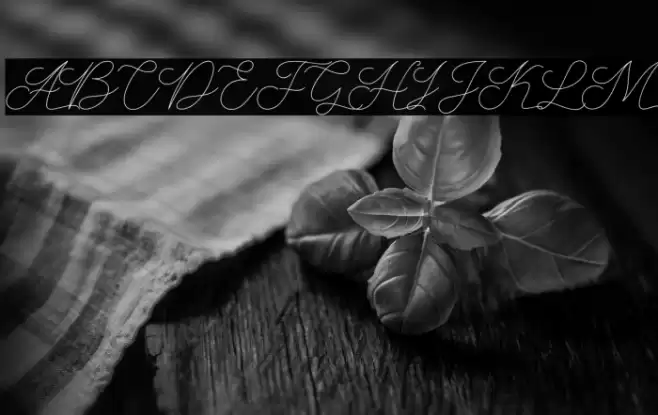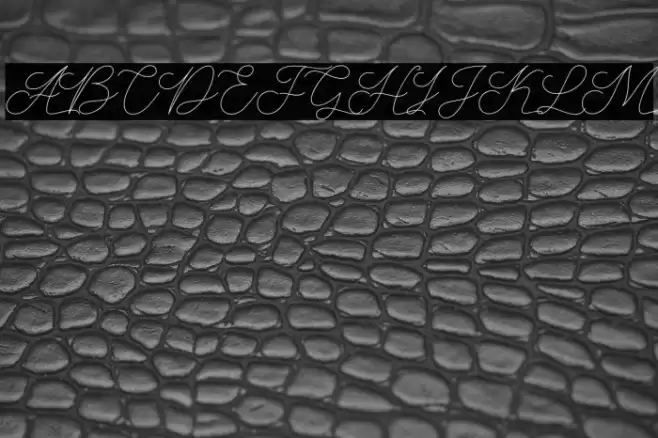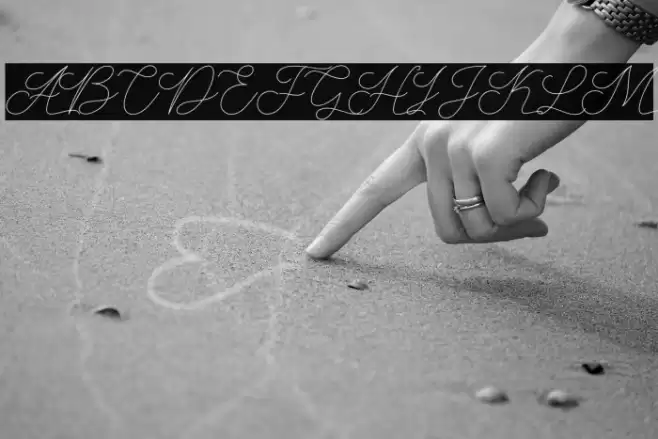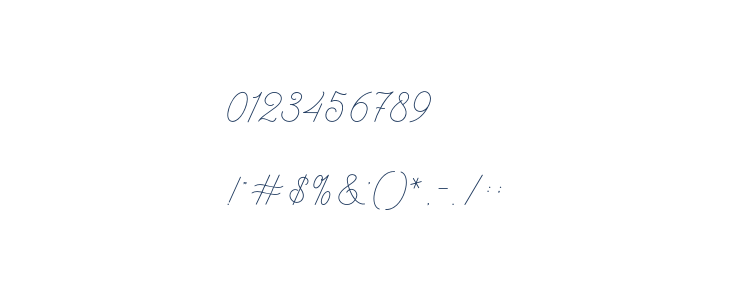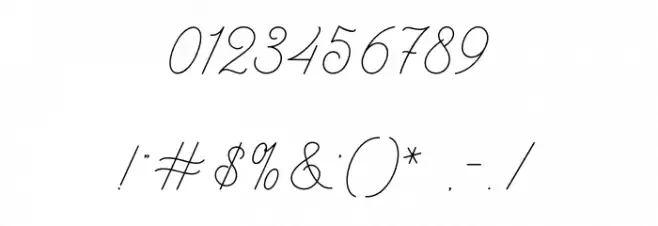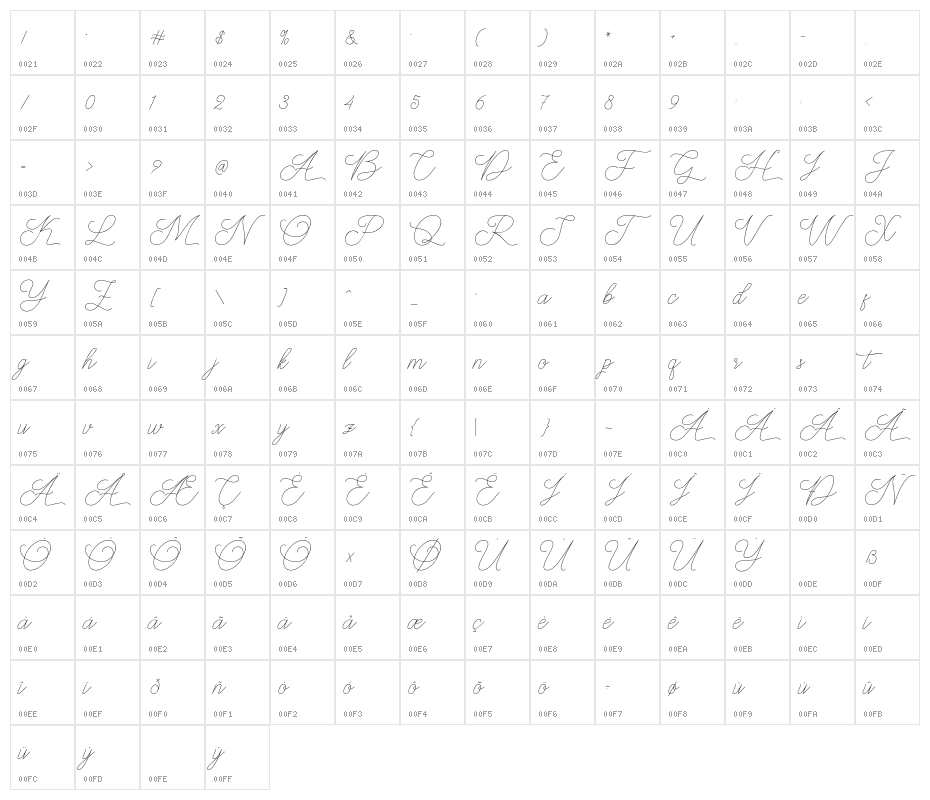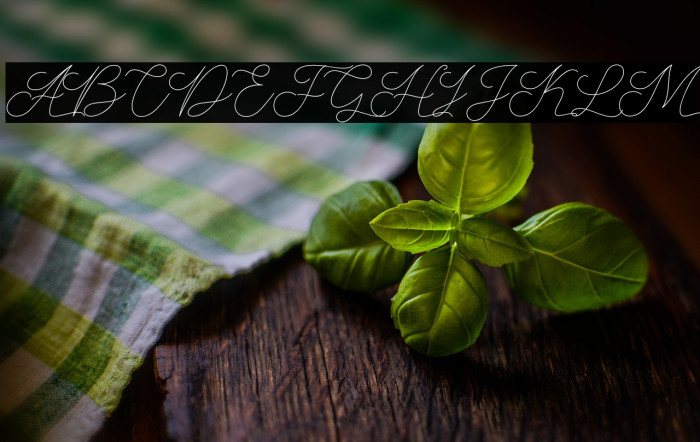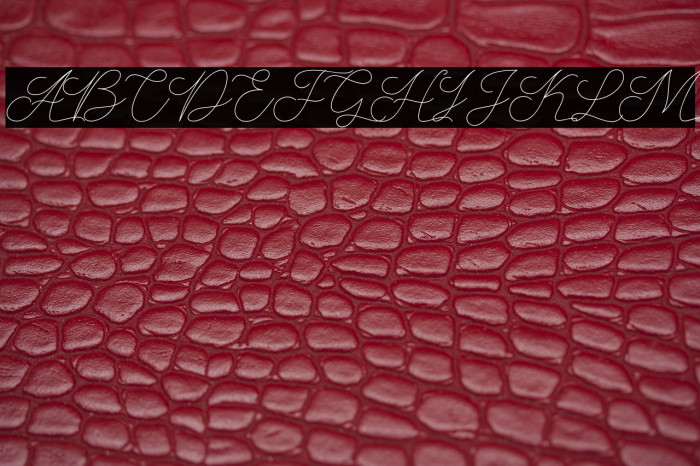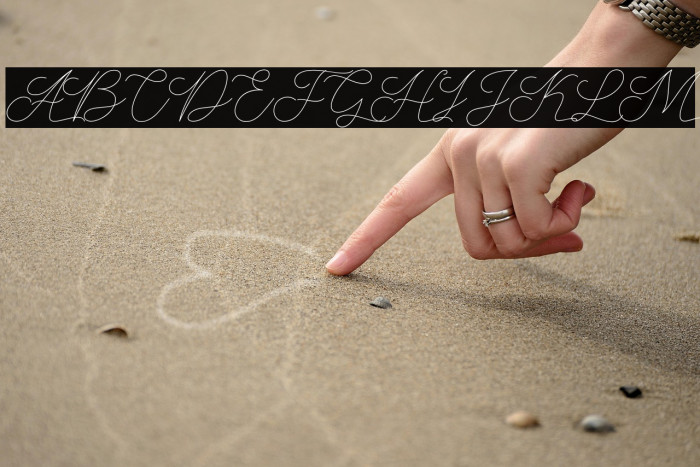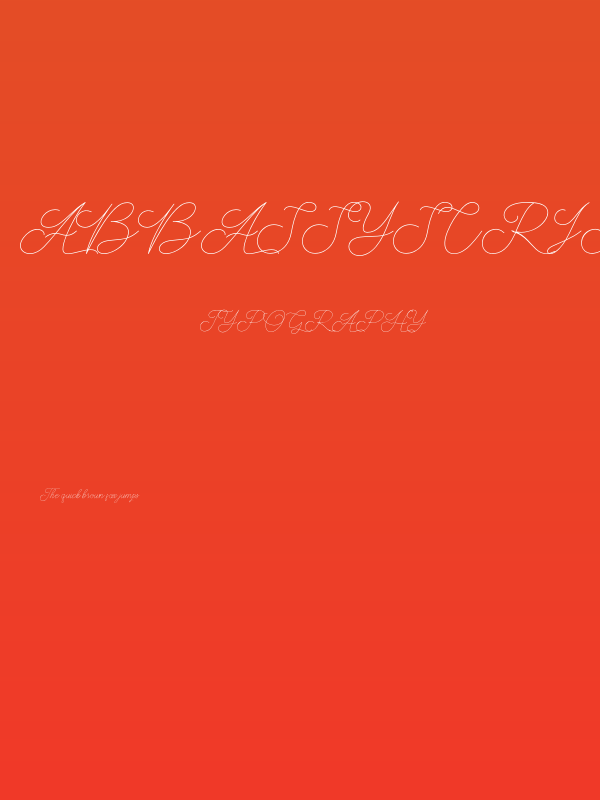
AbbassyScript Font
AbbassyScript Description
This elegant script font features flowing, interconnected letters that exude a sense of sophistication and grace. The uppercase letters are beautifully crafted with sweeping curves and delicate loops, while the lowercase letters maintain a consistent fluidity that enhances readability. The numerals are designed with the same attention to detail, ensuring they blend seamlessly with the alphabetic characters. Special characters are thoughtfully integrated, maintaining the font's overall aesthetic. The thin strokes and high contrast between thick and thin lines give it a refined appearance, making it suitable for formal invitations, branding, and decorative purposes.
A graceful and elegant script font with flowing, interconnected letters from Uncategorized fonts.
- Font: AbbassyScript
- Proposed Projects: Ideal for wedding invitations, elegant branding, greeting cards, and decorative projects.
- Overall Style: Elegant
- Use Case: Logos, Invitations, Decorative text